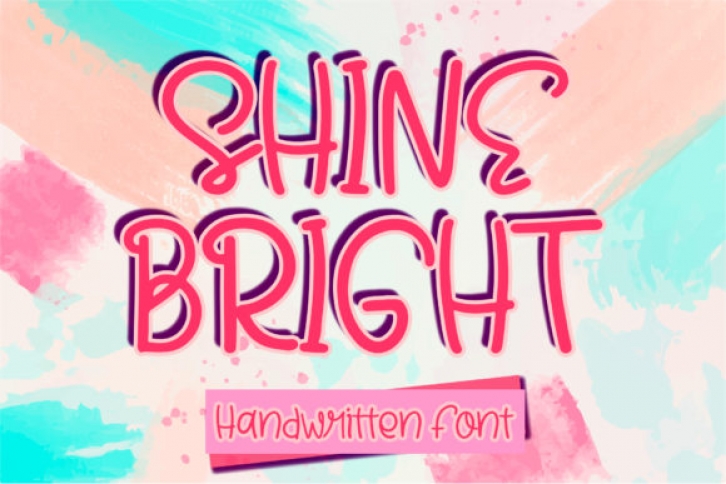
Shine Bright is a simple and dainty handwritten font. It can be used for various purposes such as logos, wedding invitations, headings, t-shirts, letterhead, signage, labels, news, posters, badges and so much more.